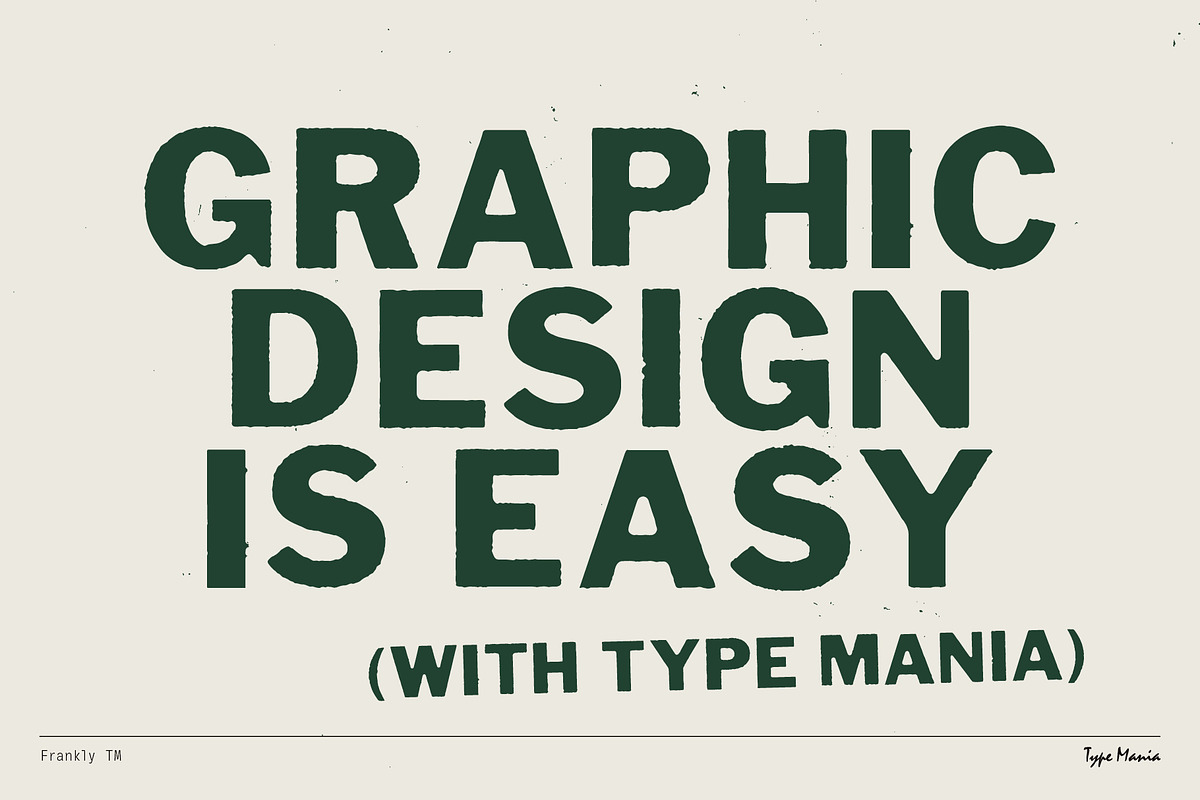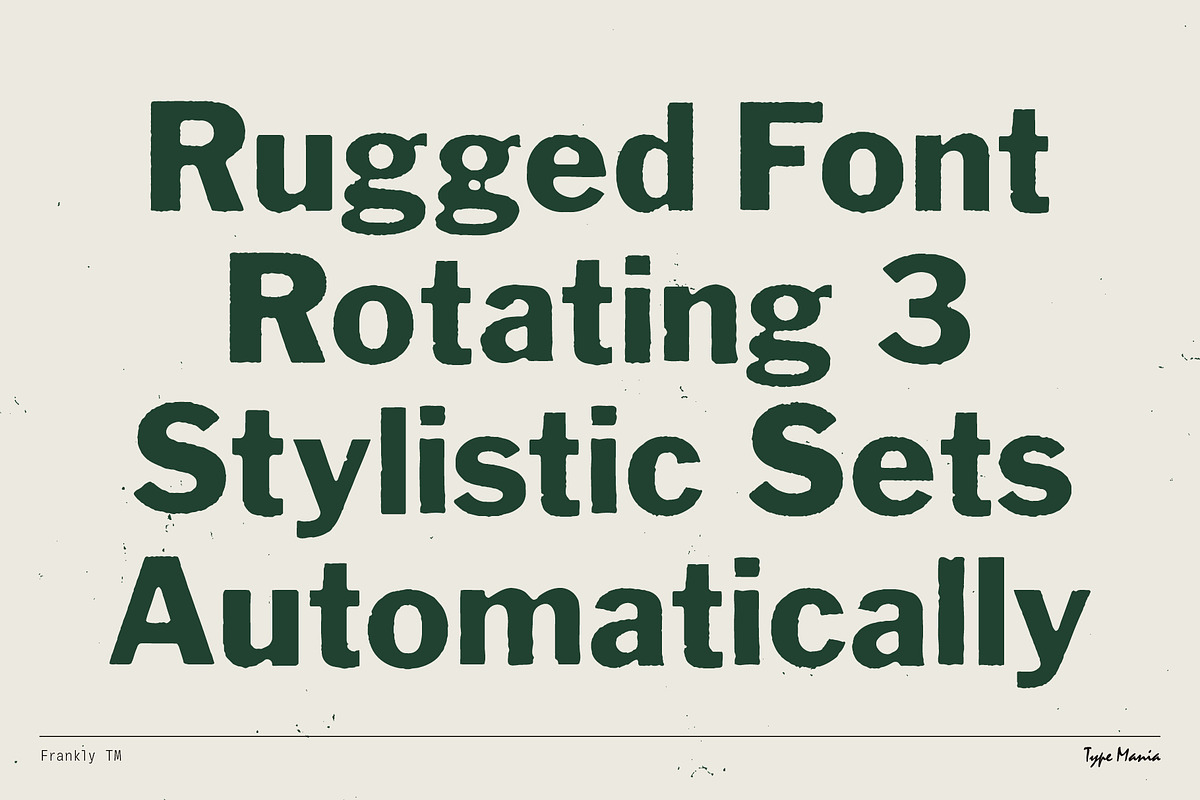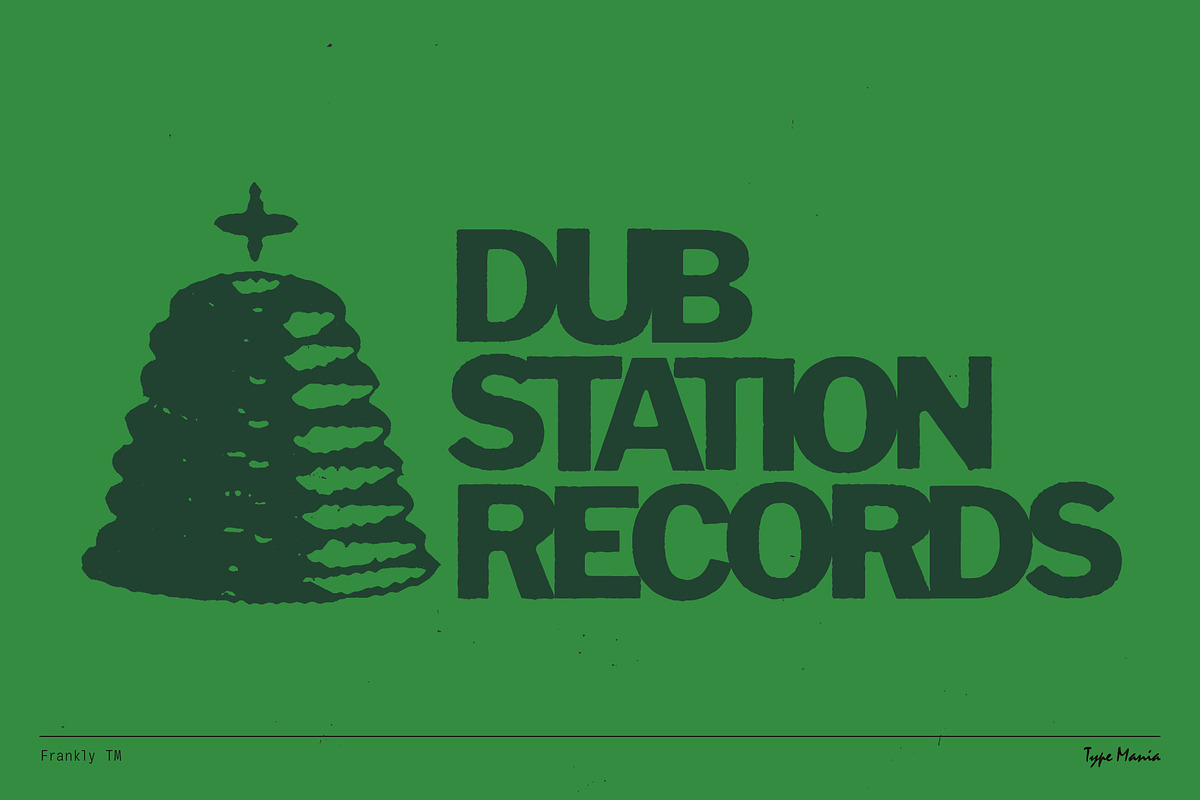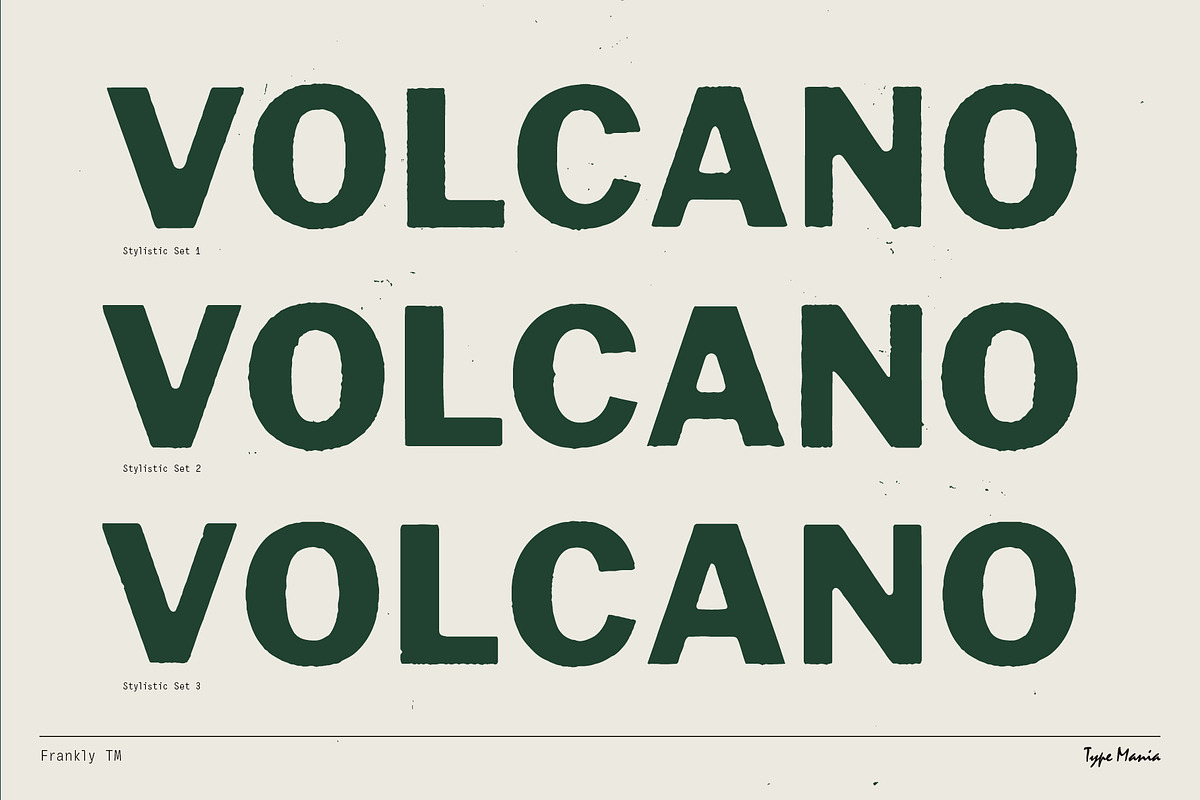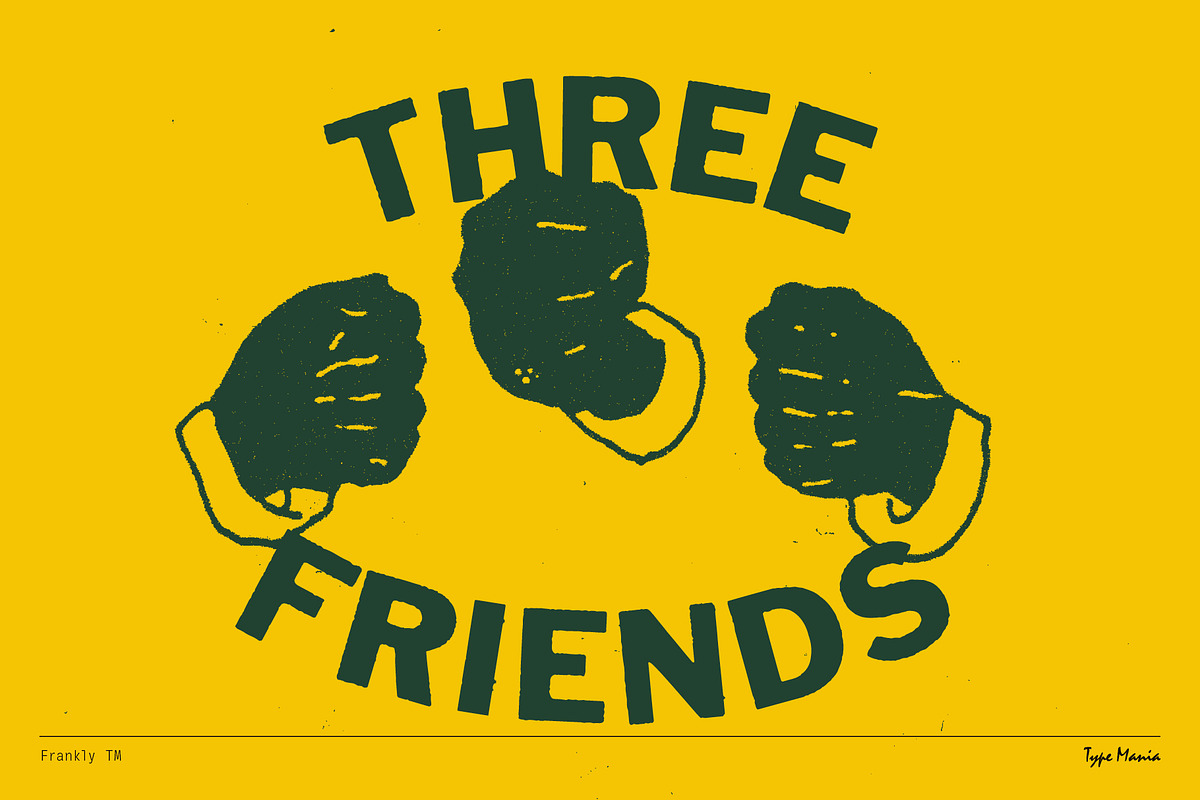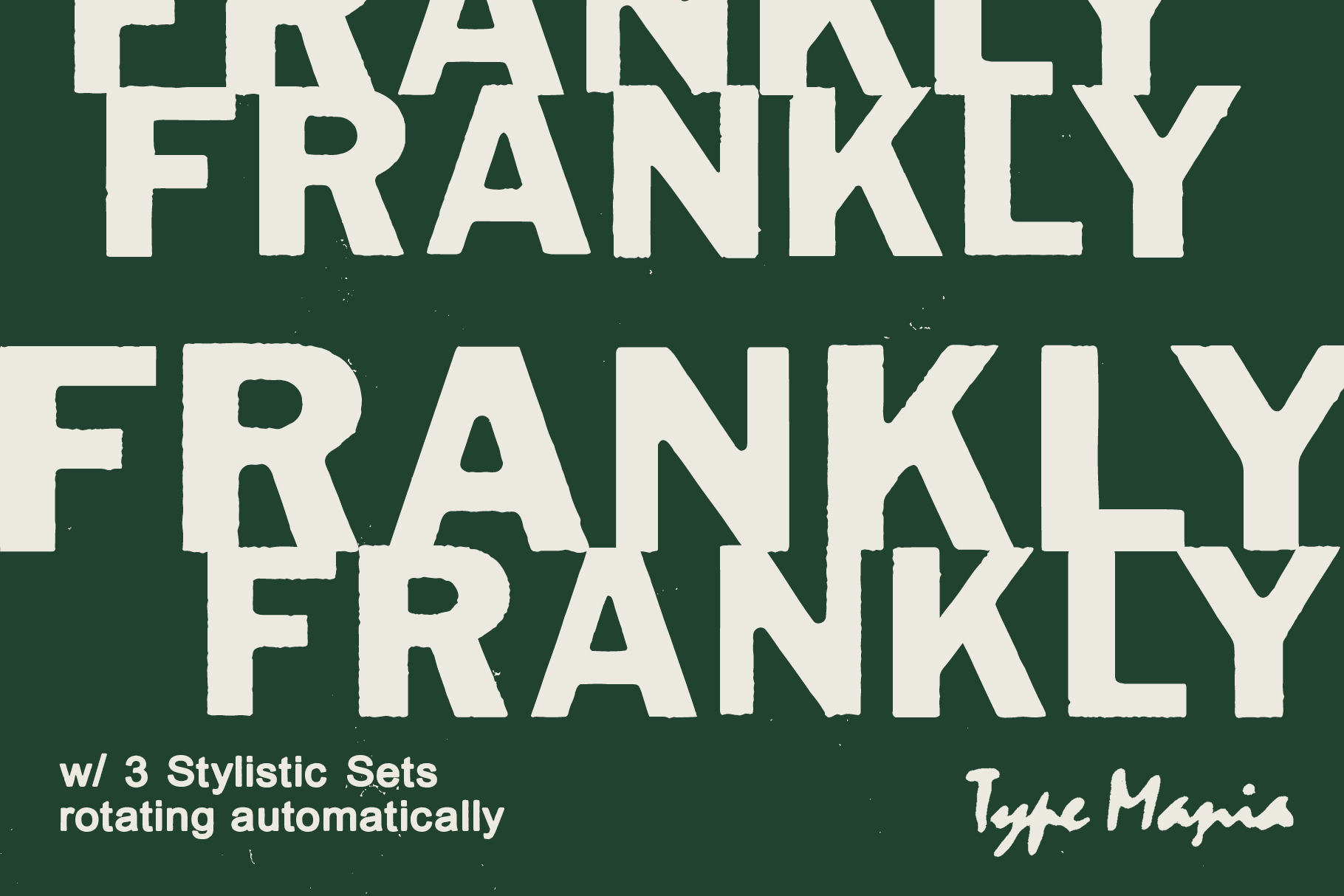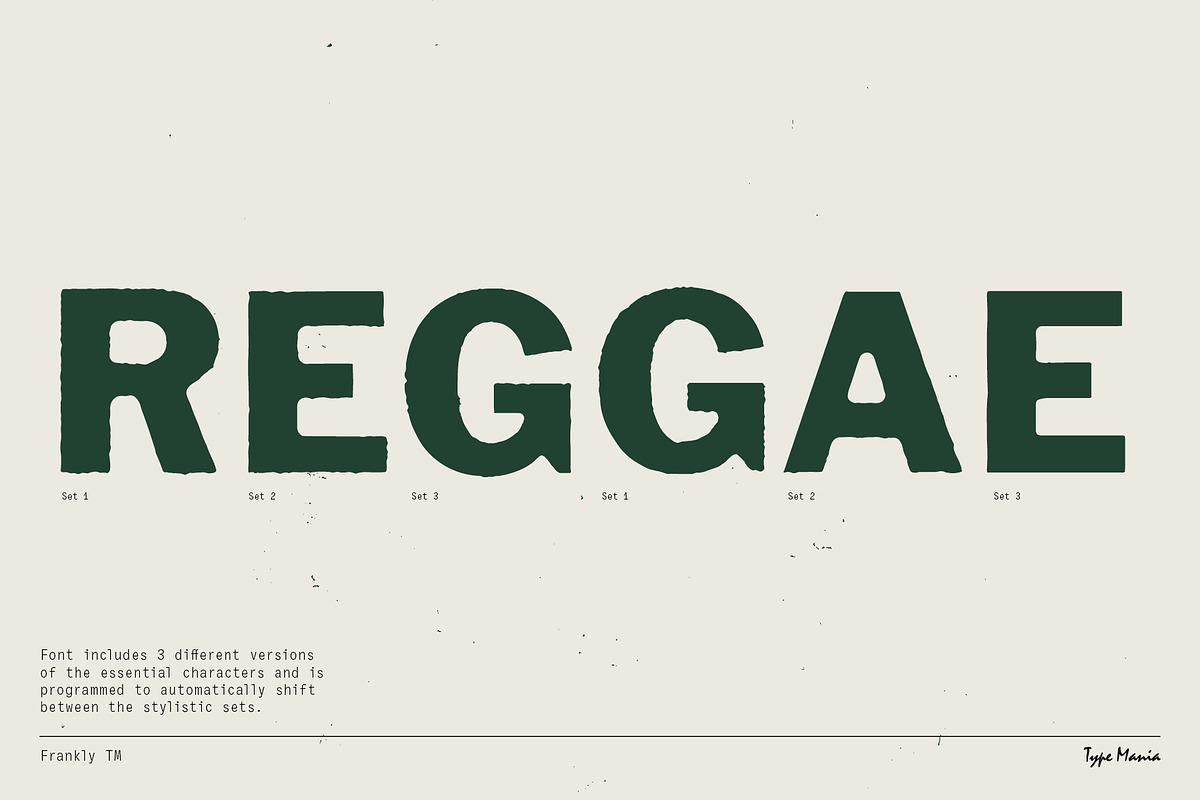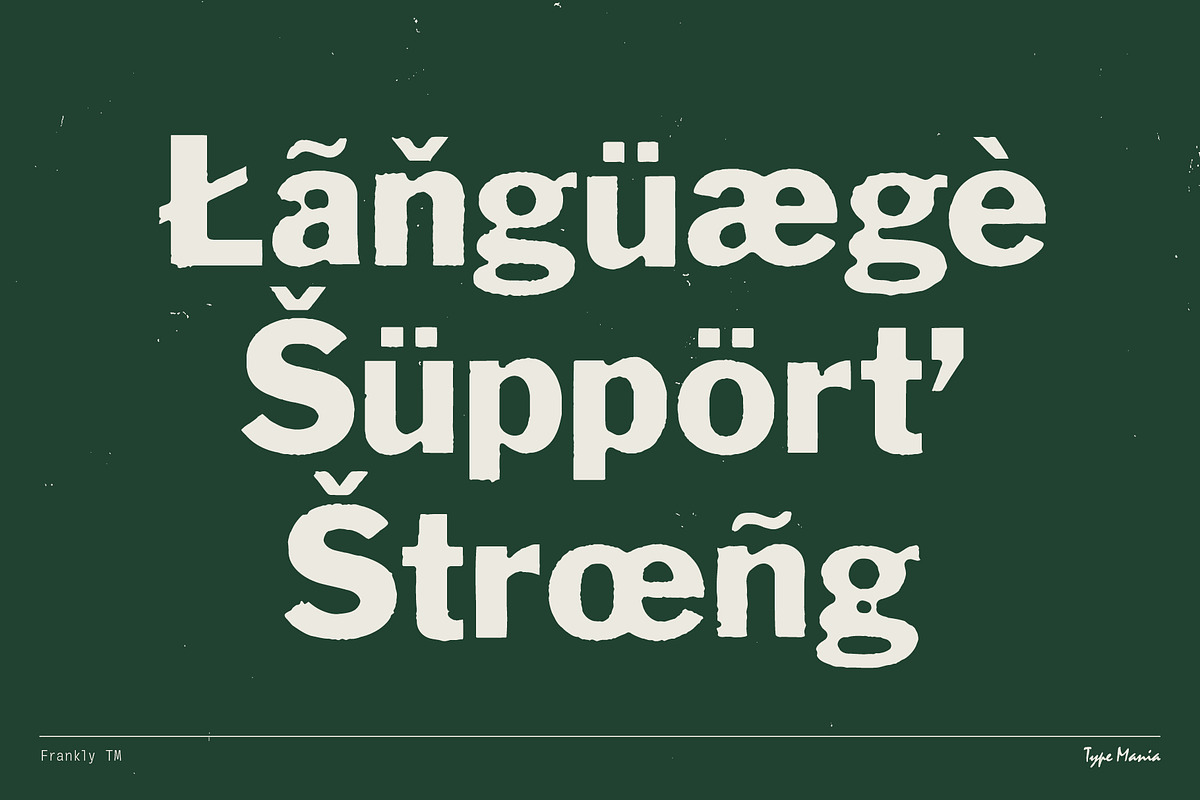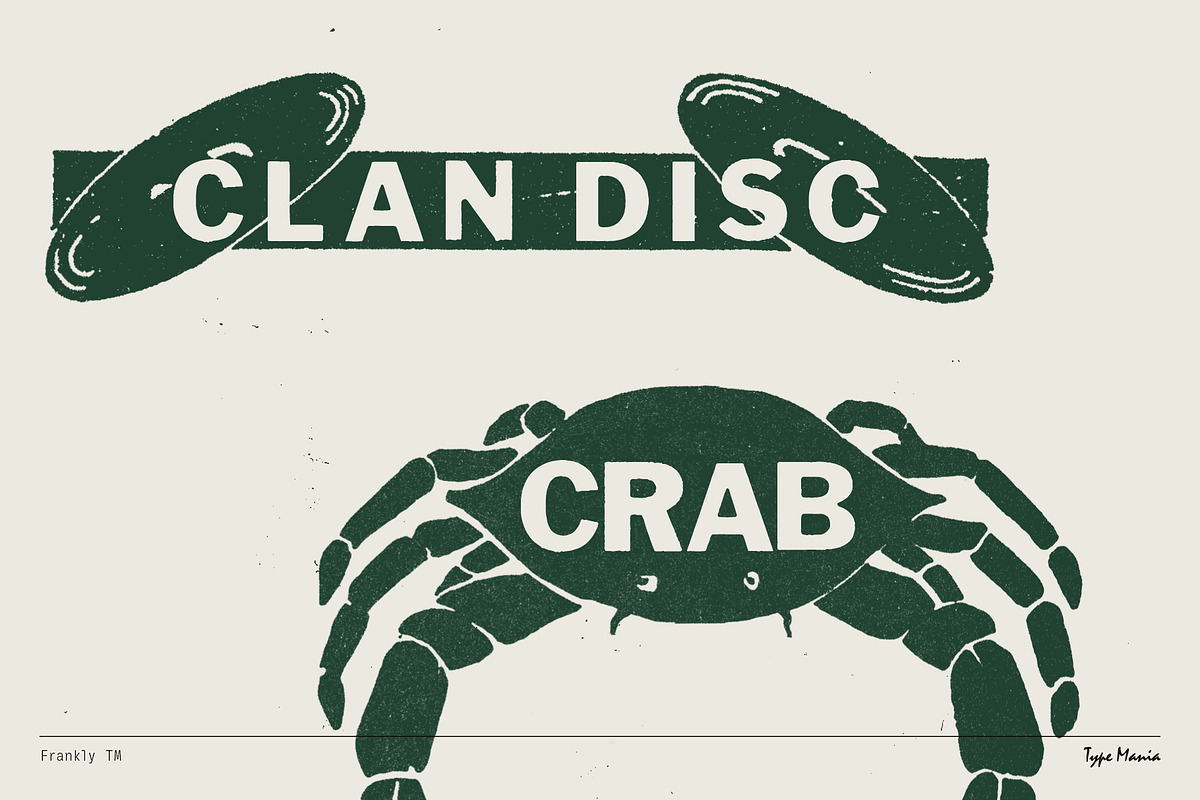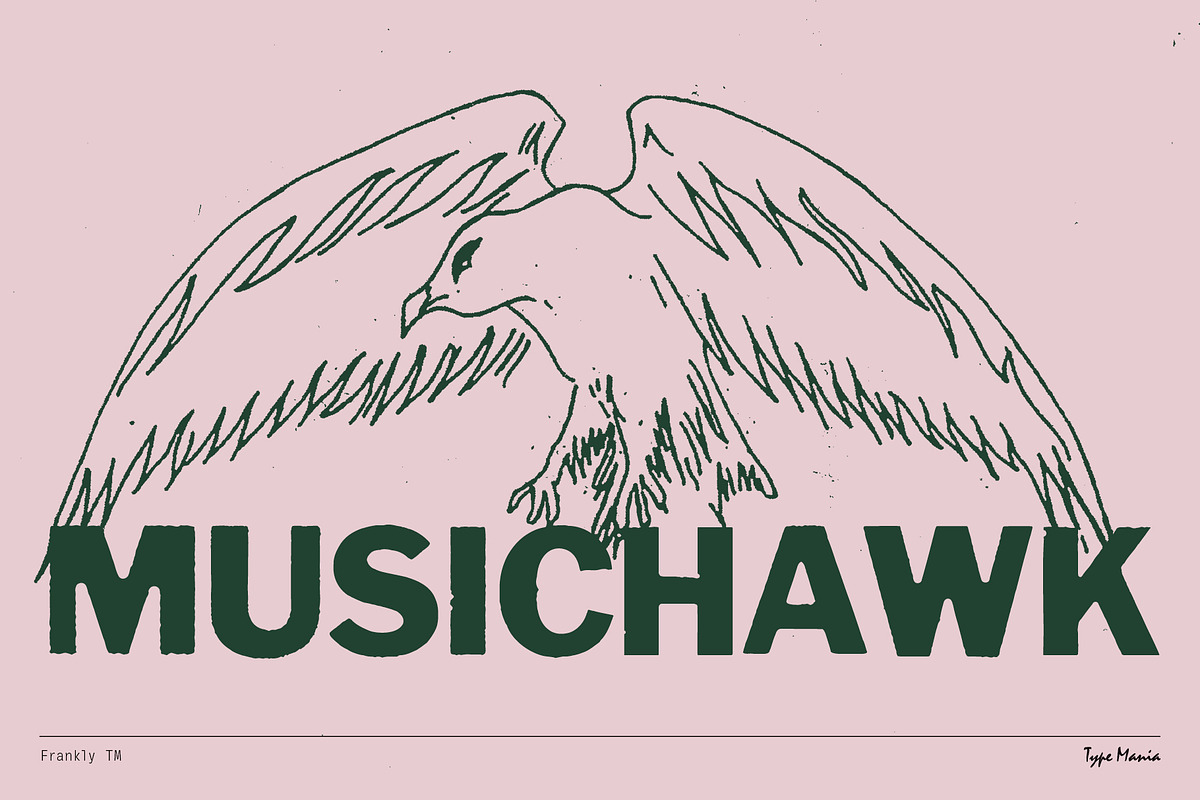
Frankly TM – Rugged Misprint Font
Frankly TM. With three stylistic sets rotating automatically (when contextual alternates are turned on), the typeface naturally mimics the subtle imperfections of misaligned offset printing. Perfect for headlines, packaging and branding (and reggae 45s), Frankly TM adds a raw, tactile quality to your designs.
OpenType features
- 3 stylistic sets
- The font is programmed to automatically shift between the stylistic sets